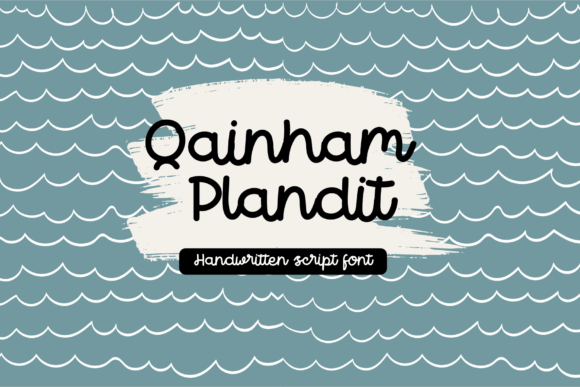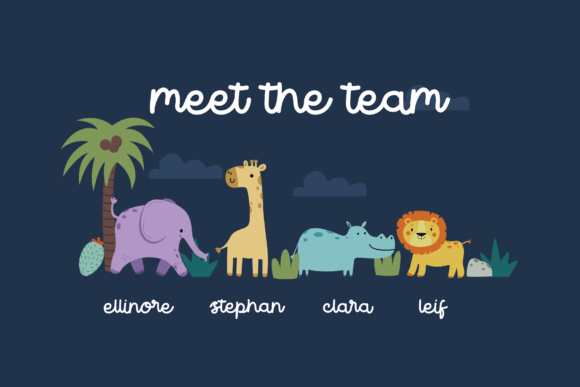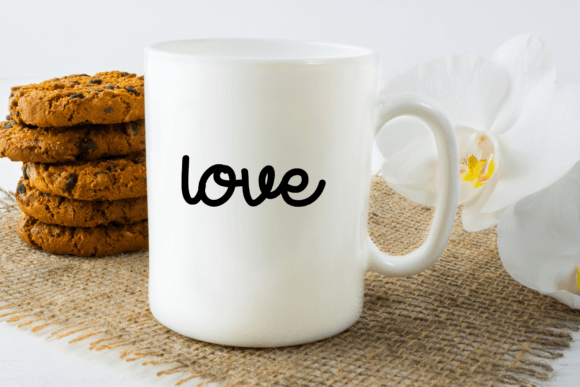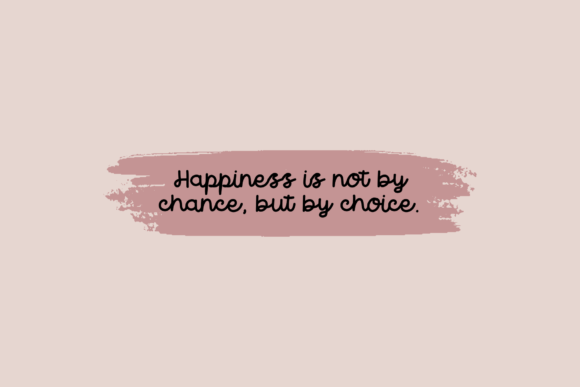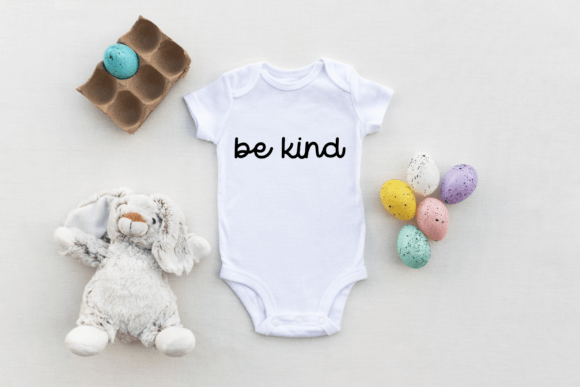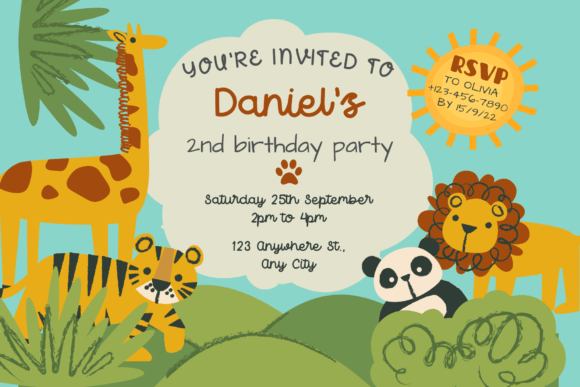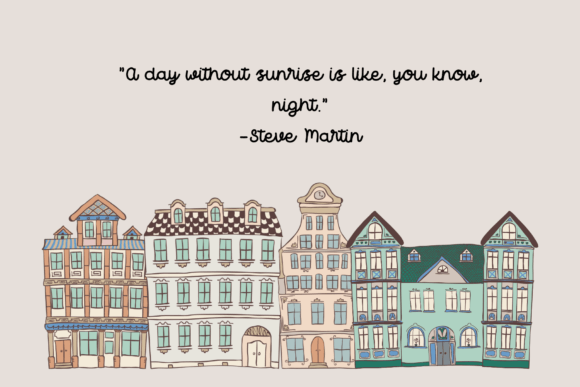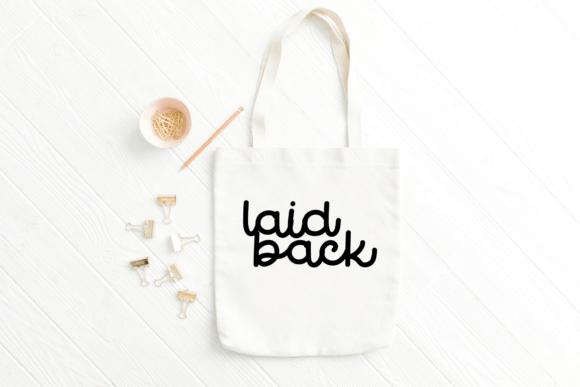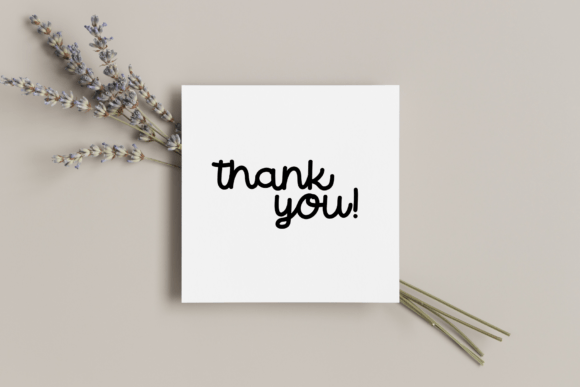
Qainham Plandit Font
**Qainham Plandit: Elevate Your Designs with Handcrafted Elegance**
Qainham Plandit is a stunning script font meticulously crafted to infuse your projects with a beautiful, handcrafted look. This hand-drawn typeface adds a unique and authentic touch to your work, making it ideal for a wide range of design applications. Here’s why Qainham Plandit is the perfect choice for adding an authentic hand-lettered aesthetic to your projects:
1. **Handcrafted Beauty:** Qainham Plandit boasts elegantly hand-drawn letterforms that exude beauty and sophistication. It lends your designs a touch of artisanal craftsmanship.
2. **Versatile Usage:** This script font is versatile and adaptable, making it suitable for a variety of design projects. Whether you’re working on branding, invitations, blogs, or planners, Qainham Plandit elevates your creative vision.
3. **Branding Brilliance:** Create distinctive logos and branding materials with Qainham Plandit. Its elegant, hand-lettered style ensures your brand identity stands out and leaves a lasting impression.
4. **Invitations and Stationery:** Design captivating wedding invitations, event stationery, or personalized greeting cards with Qainham Plandit. It adds an elegant and personalized touch to special occasions.
5. **Blog and Online Presence:** Enhance the visual appeal of your blog or website with Qainham Plandit. Use it for headers, titles, featured content, and more to infuse your online presence with an authentic handcrafted aesthetic.
6. **Planners and Journals:** Incorporate Qainham Plandit into planner designs, journal layouts, or bullet journal templates. Its hand-drawn elegance elevates the appearance of organization and planning materials.
7. **Social Media Graphics:** Craft eye-catching social media graphics, posts, and captions with Qainham Plandit. It imparts an authentic, hand-lettered charm to your Instagram, Pinterest, or Facebook content.
8. **DIY Projects:** Elevate your DIY crafting projects with Qainham Plandit. Whether you’re creating custom decorations, labels, or handmade gifts, this font adds a touch of elegant handcraftsmanship to your creations.
9. **Easy Hand-Lettered Feel:** Qainham Plandit offers the charm of hand-lettering without the need for manual handwriting. It simplifies the process of achieving a handcrafted look in your designs.
10. **Creative Freedom:** Qainham Plandit provides room for creative expression with its unique character and style. It allows for customization and personalization while maintaining a polished and elegant appearance.
Qainham Plandit is a valuable asset for designers, bloggers, event planners, and anyone seeking to add a touch of handcrafted elegance to their projects. Its hand-drawn aesthetics and versatility make it an excellent choice for various creative endeavors. Whether you’re working on branding, invitations, online content, or DIY crafts, Qainham Plandit effortlessly elevates your designs with its captivating, handcrafted elegance.